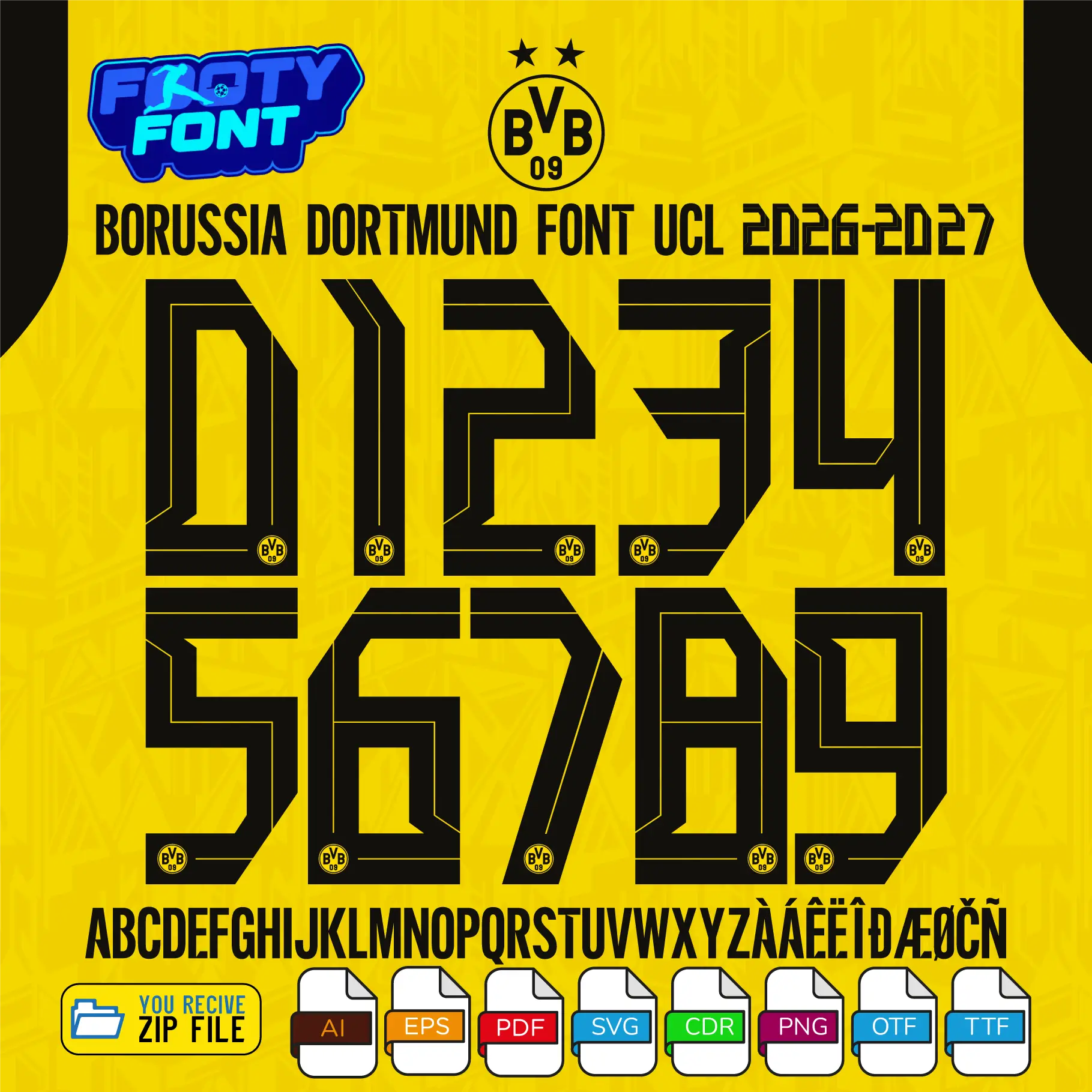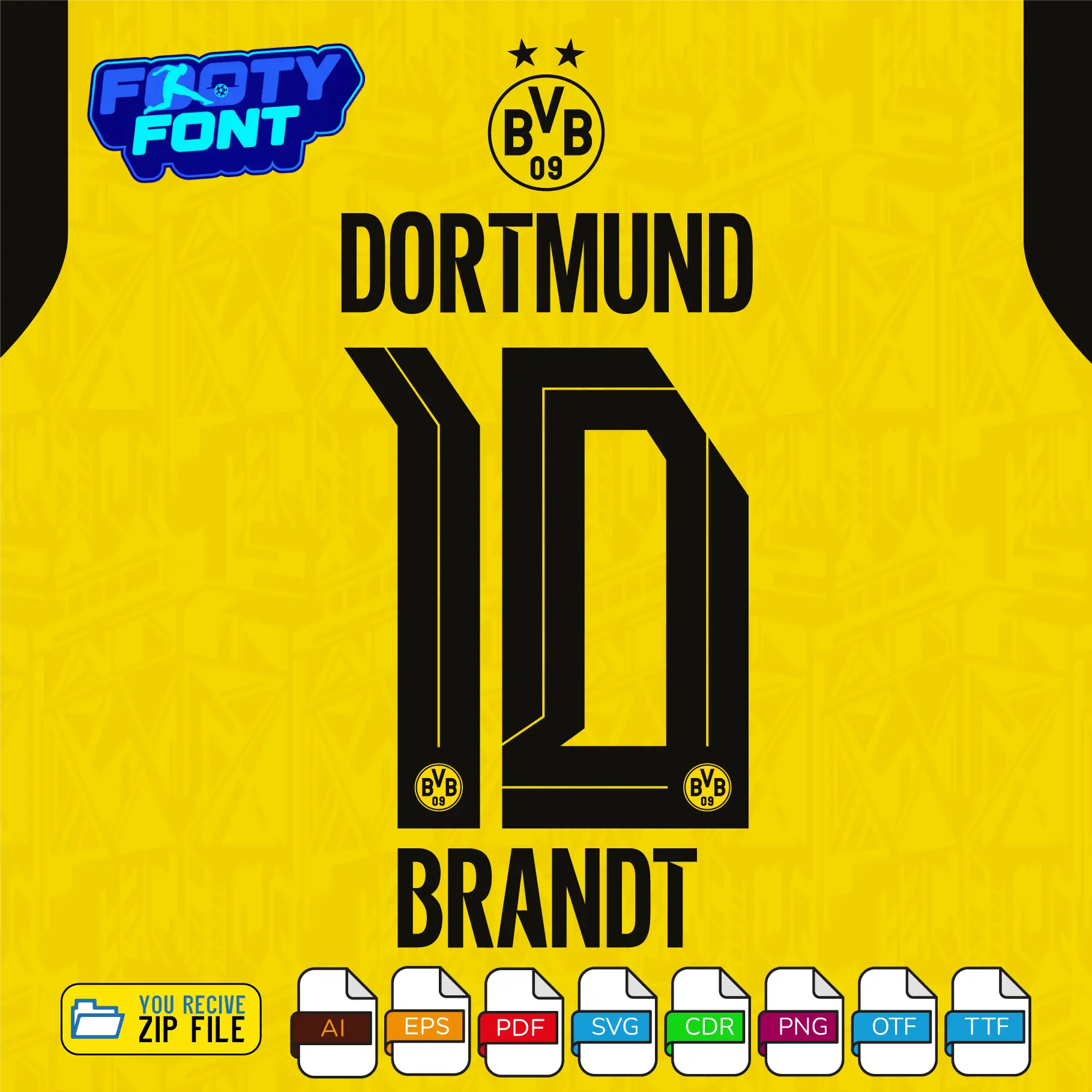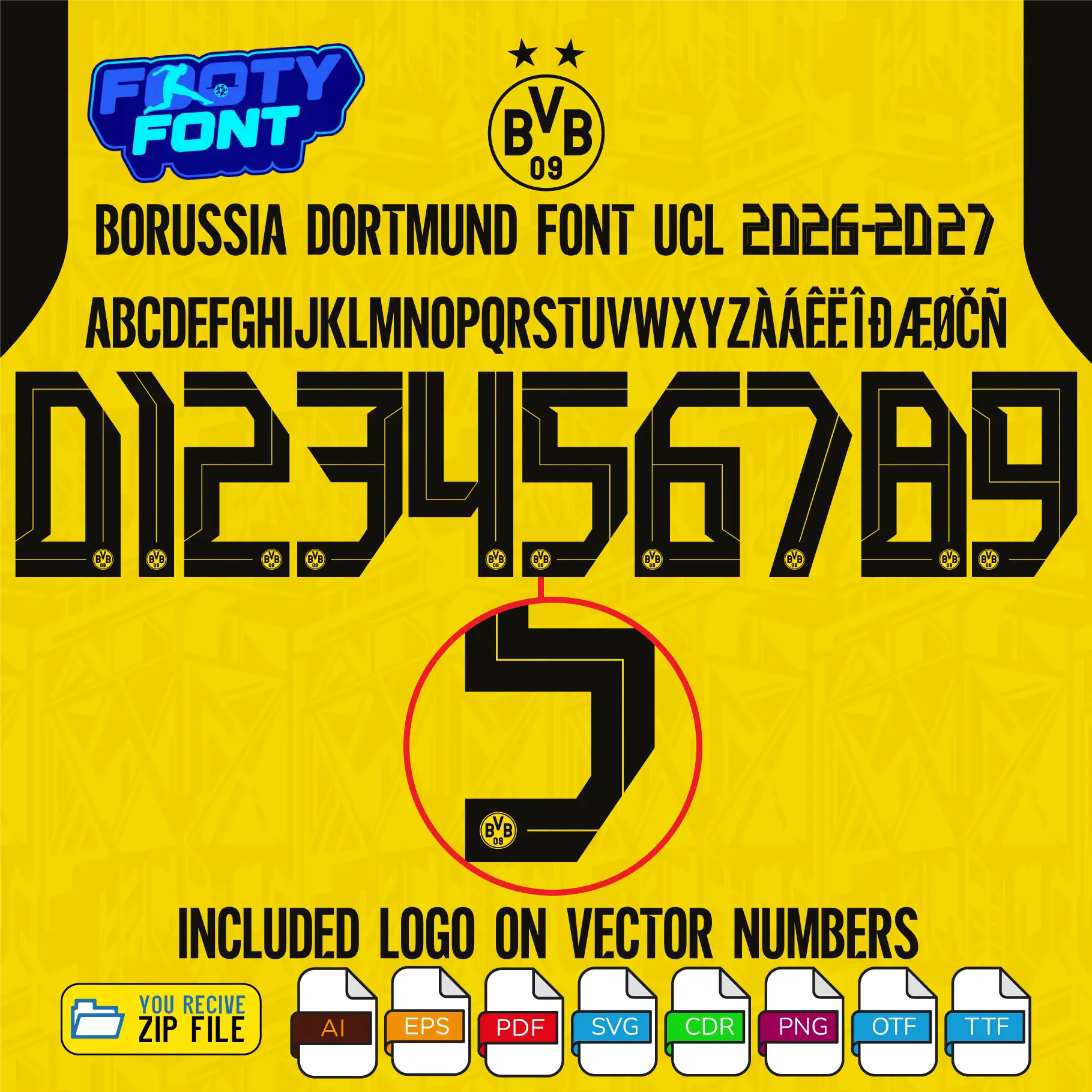
Borussia Dortmund 2026/27 Font Football
Bring the electrifying energy of the Yellow Wall to your designs with this font football, inspired by the Borussia Dortmund 2026-27 UEFA Champions League kit. This high-quality typeface is meticulously designed to replicate the sleek, aggressive lettering worn by Die Schwarzgelben during their European campaigns. It features striking, geometric black numbers with a sharp yellow inner-line detail that perfectly complements their iconic yellow and black jerseys.
This font captures the elite style worn by global superstars like Julian Brandt, Nico Schlotterbeck, and Karim Adeyemi. As Borussia Dortmund prepares to compete on the biggest stage in European football, this UCL font is an absolute must-have for fans creating custom jersey designs, digital art, streetwear, or matchday posters.
Print your own Borussia Dortmund 2026-27 name and number set. Most customers use this font to create a personalised name and number for a jersey – their own name, their kid's name or a favourite player. Type the name in the font, print it as a DTF transfer or cut it in vinyl, then heat-press it onto the shirt.
Use this font to bring authentic German football style into your designs-whether for custom jersey graphics, fan merchandise, posters, or social media content.